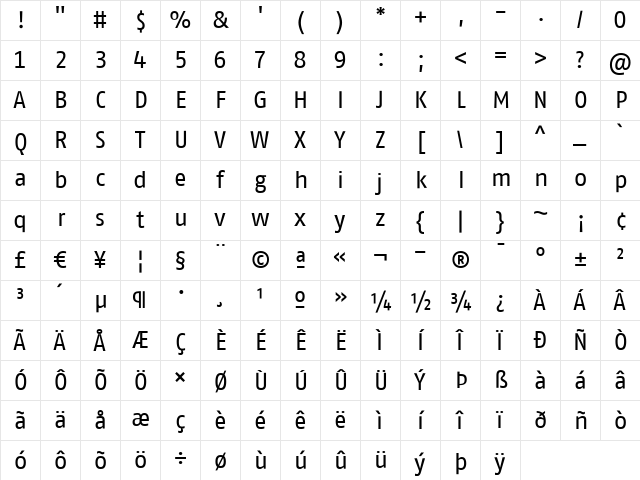
FagoNoTf Regular
Foundry: Ole Schaefer, . Published by FontShop International for FontFont Release Fago is a trademark of FSI Fonts and Software GmbH
Design Context for FagoNoTf
FagoNoTf is a composed and adaptable typeface that performs quietly and consistently across a wide range of design contexts.
Who designed the FagoNoTf Regular font?
This font was published by Ole Schaefer, . Published by FontShop International for FontFont Release Fago is a trademark of FSI Fonts and Software GmbH. Check the technical specs section for copyright and designer details.